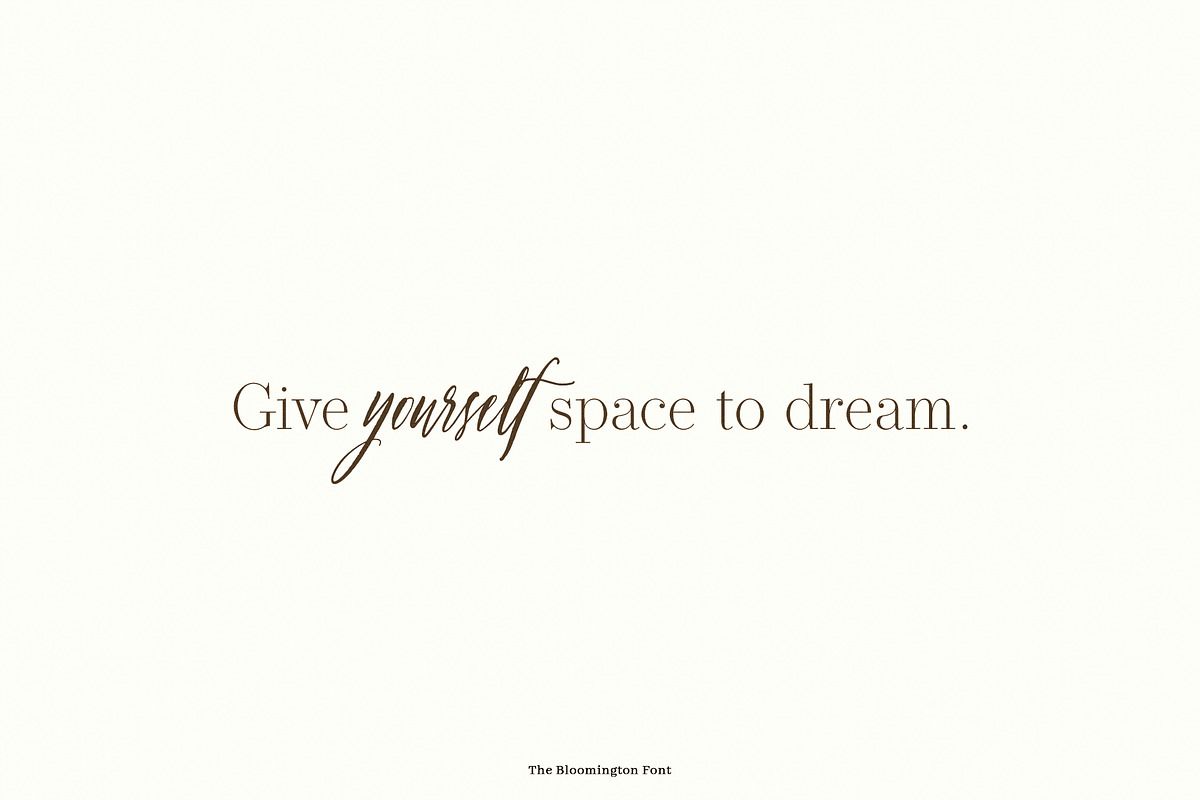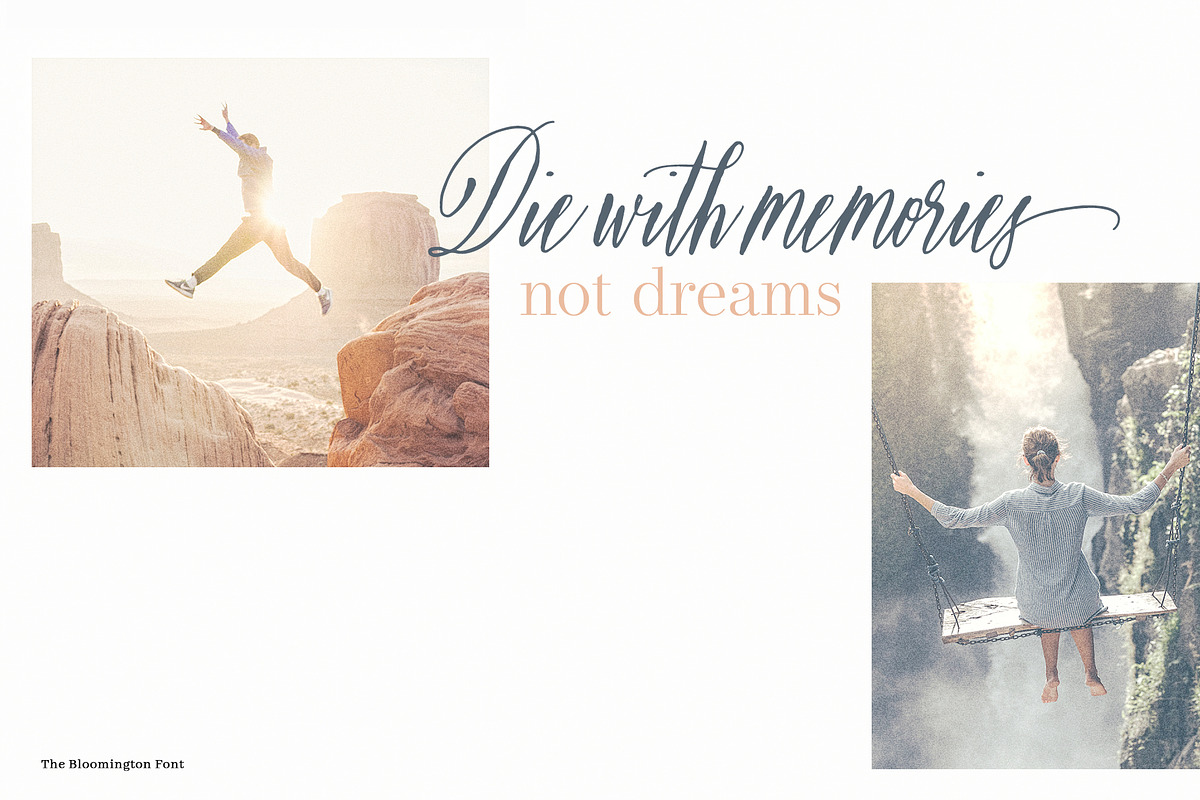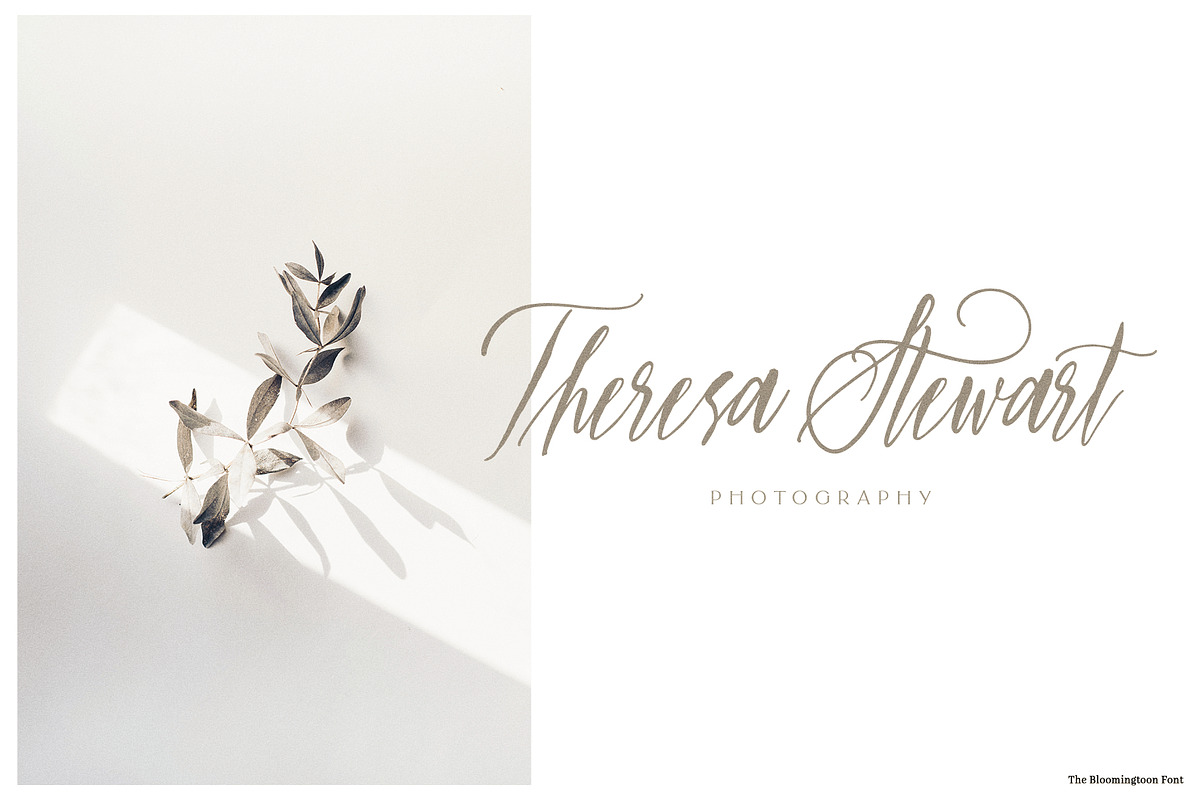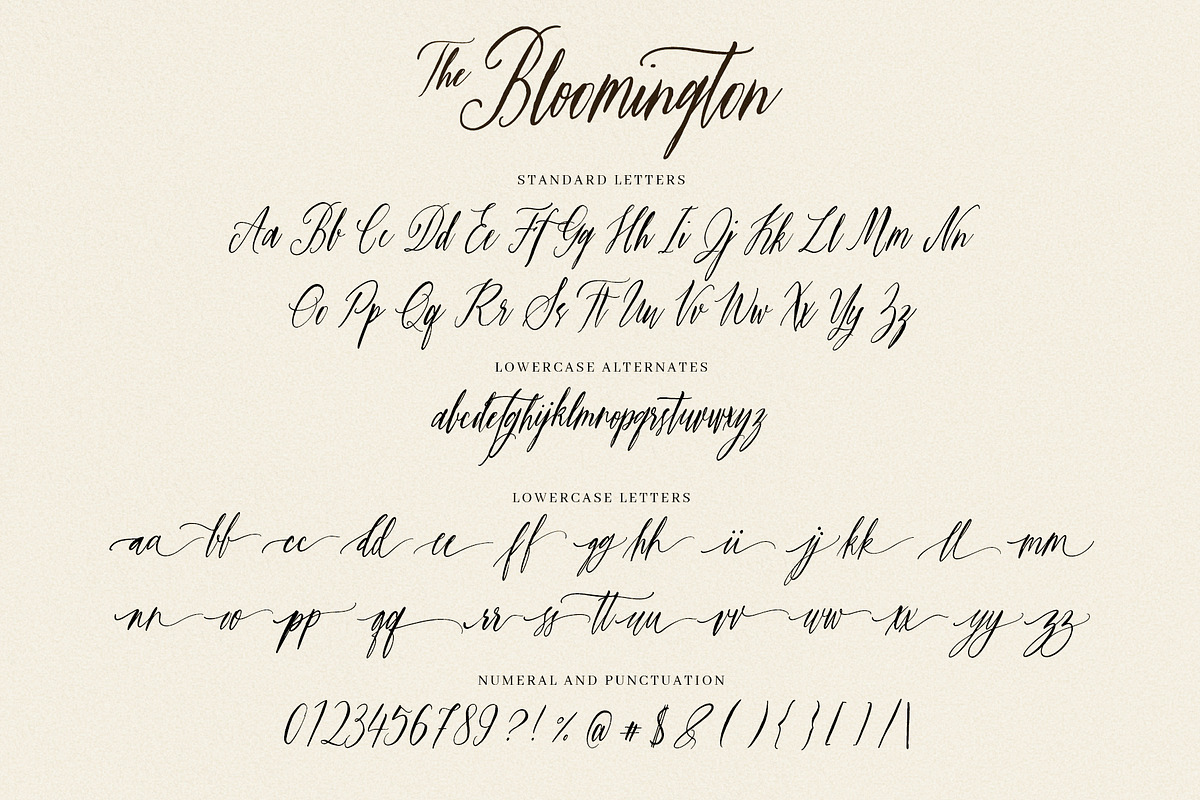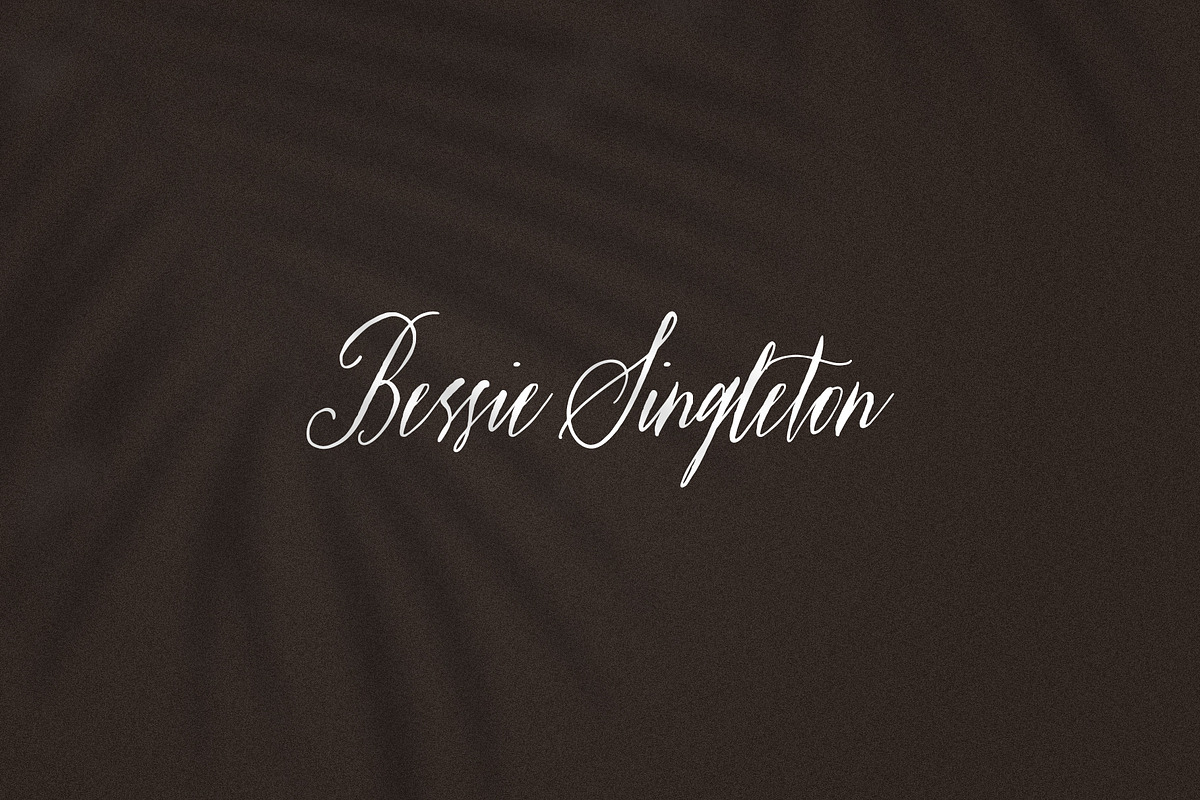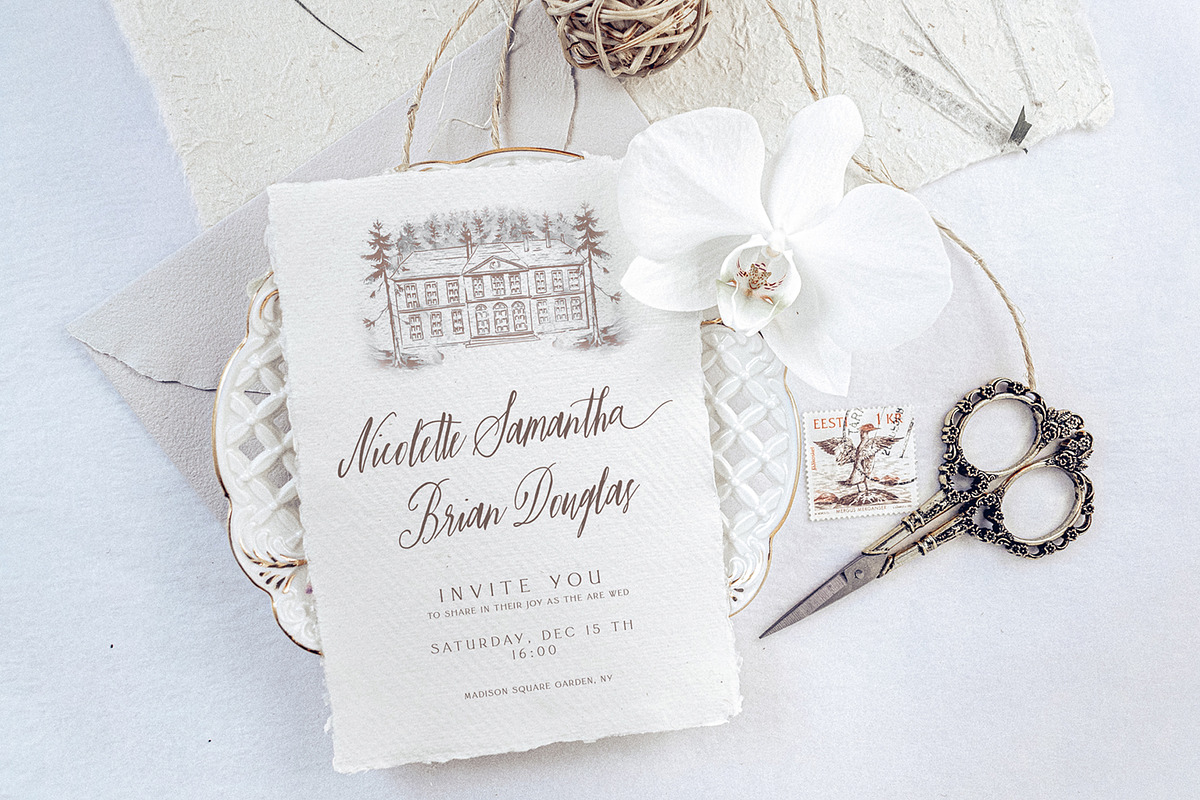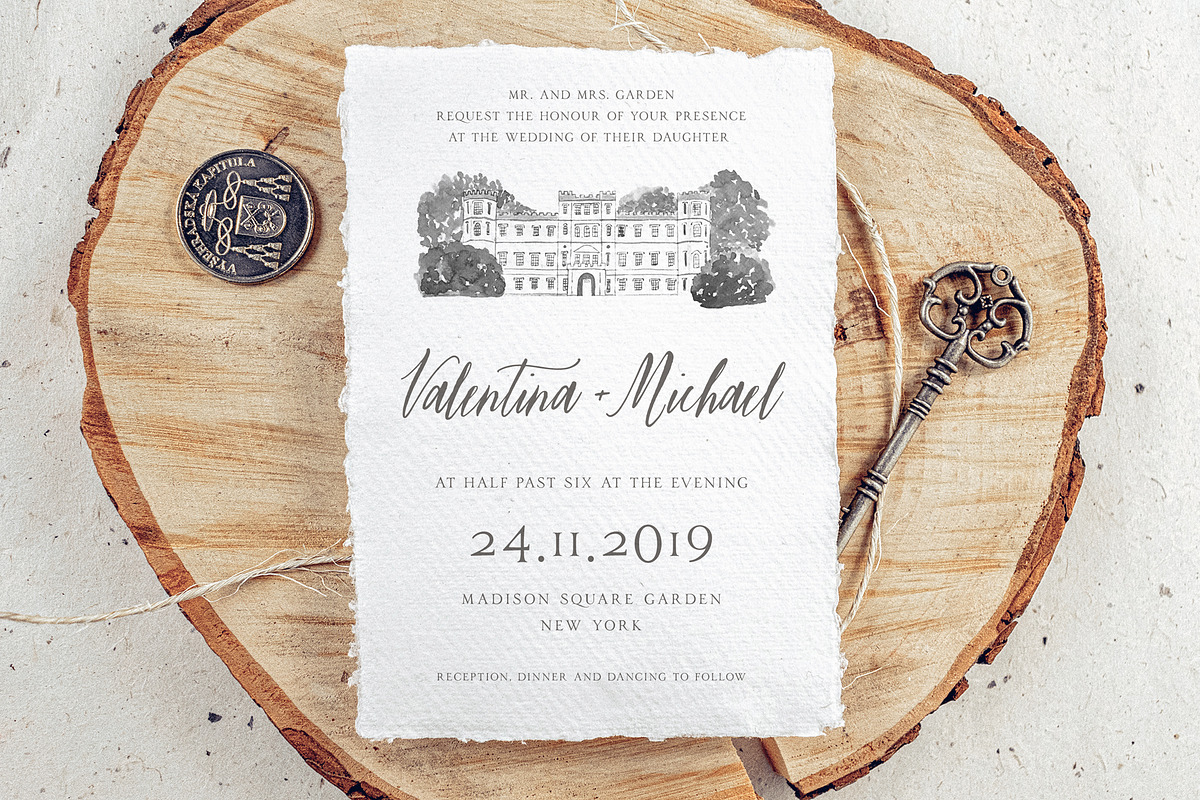
The Bloomington Font
The Bloomington is a modern calligraphy font with multilingual support for Western and Central Europe. It's ideal for blog website, instagram, branding, invitations, business cards, weddings and many more.
The Bloomington font also includes alternate characters for LOWERCASE letters, beginning ending swashes for all lowercase letters and ligarures for different styles.